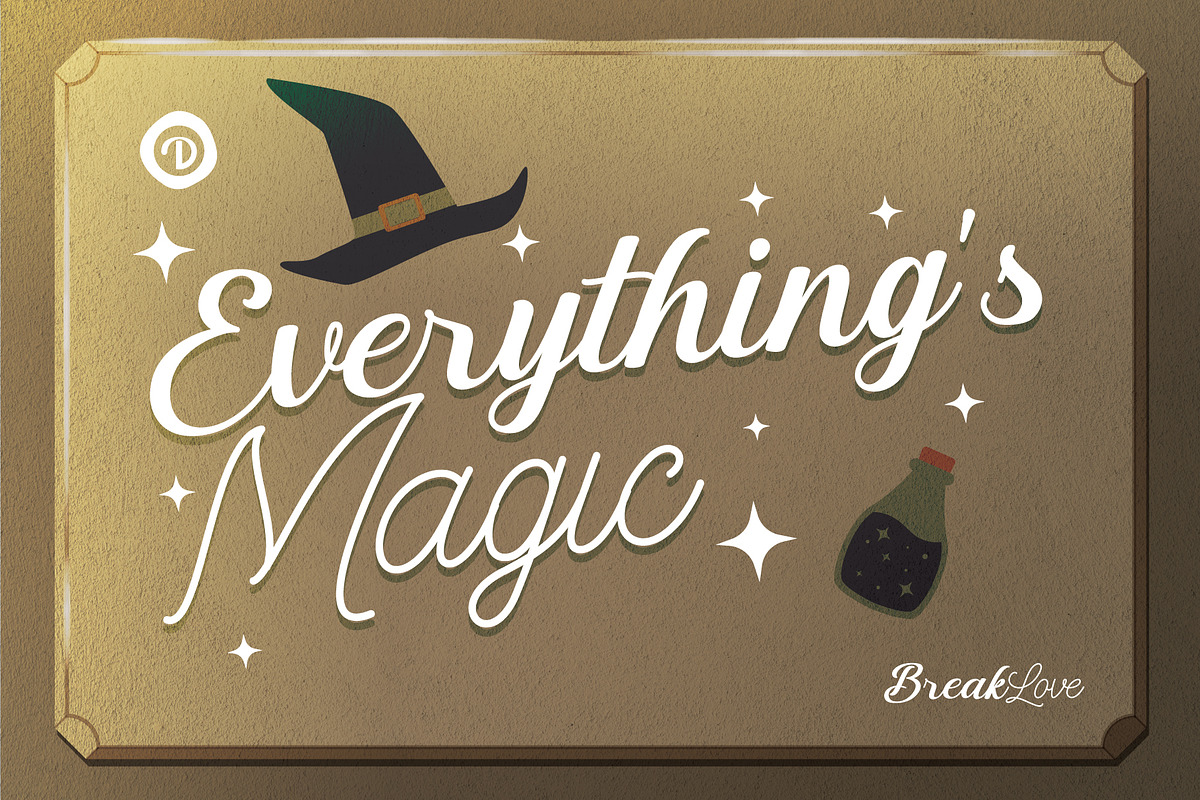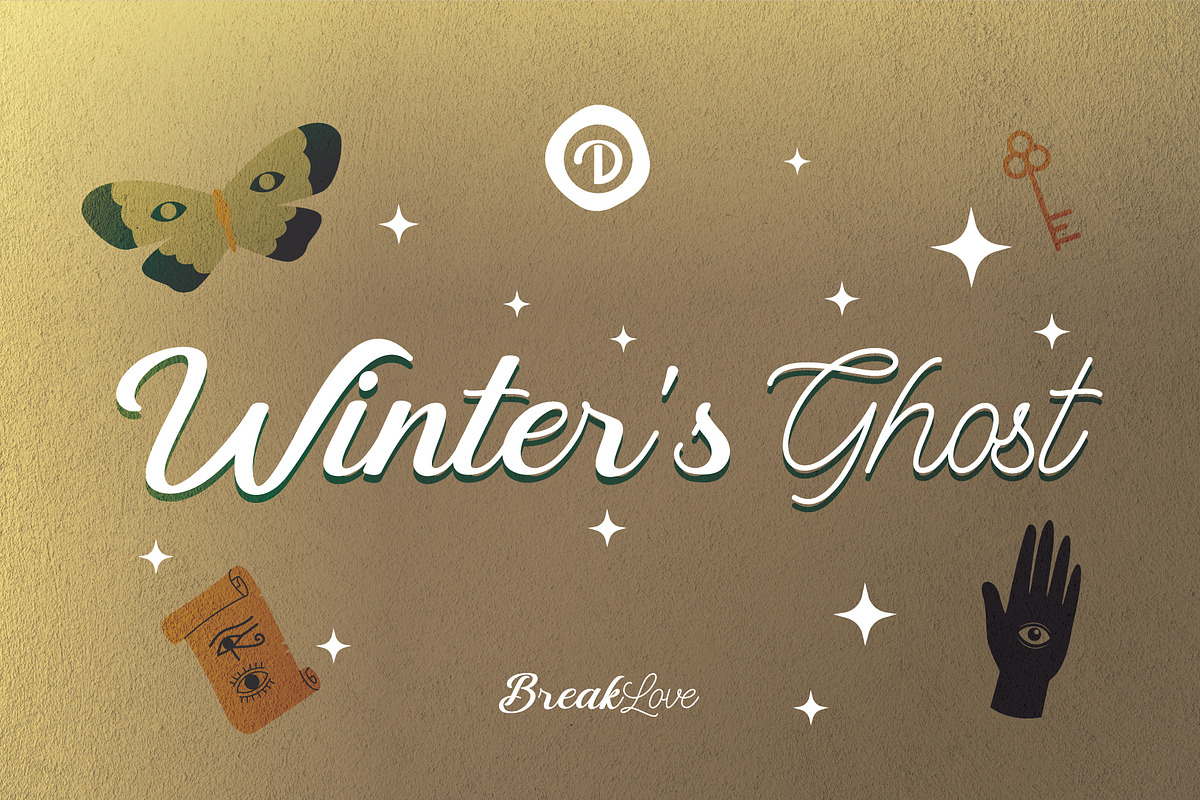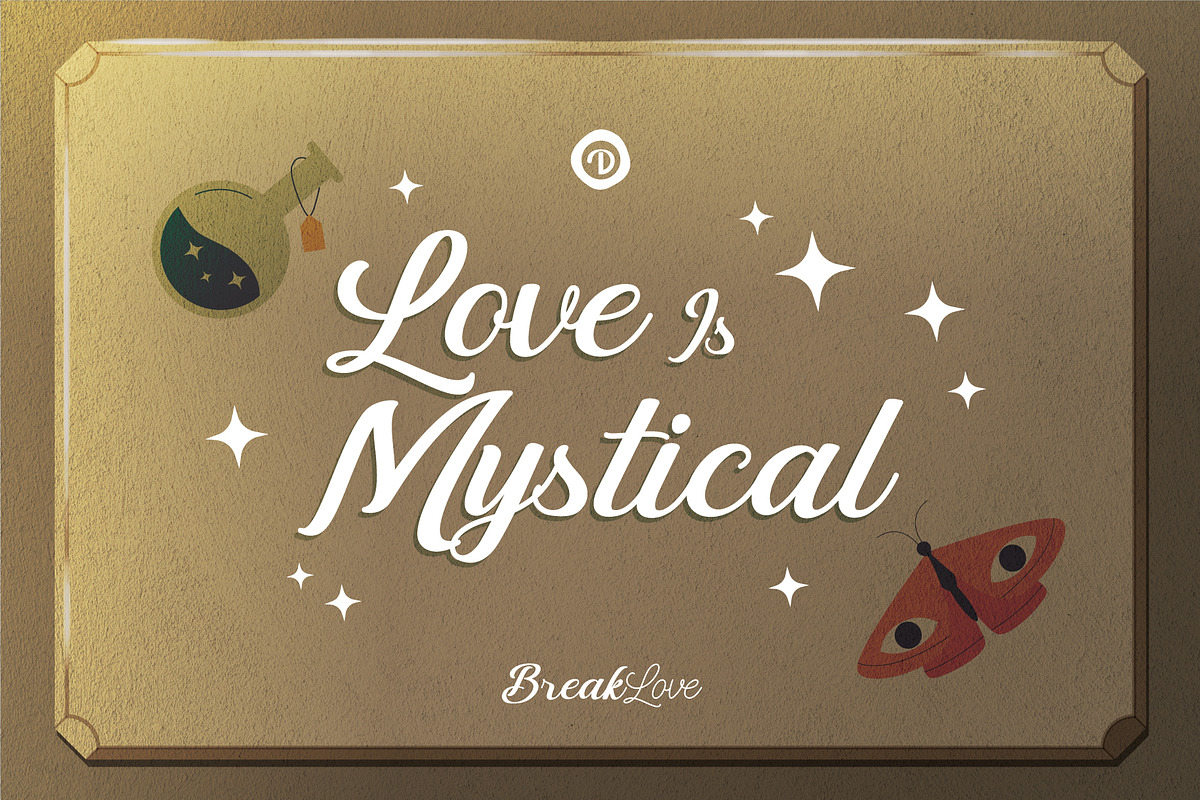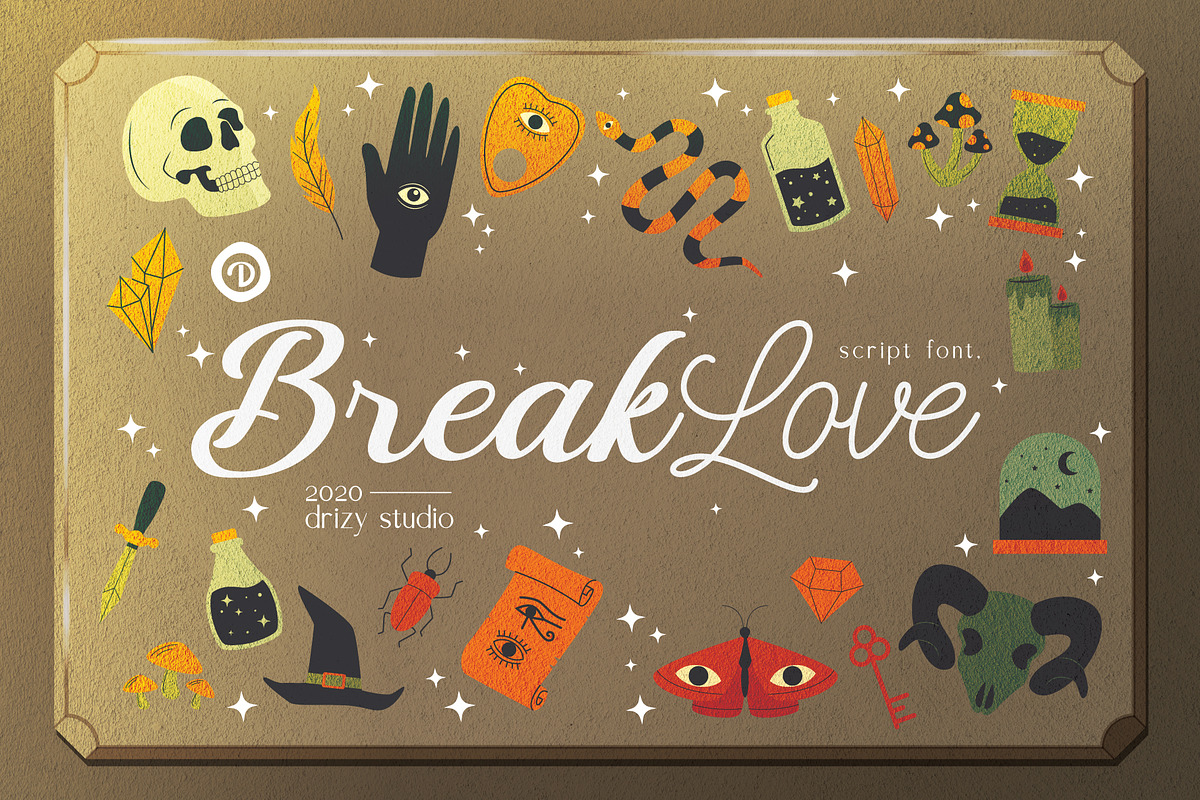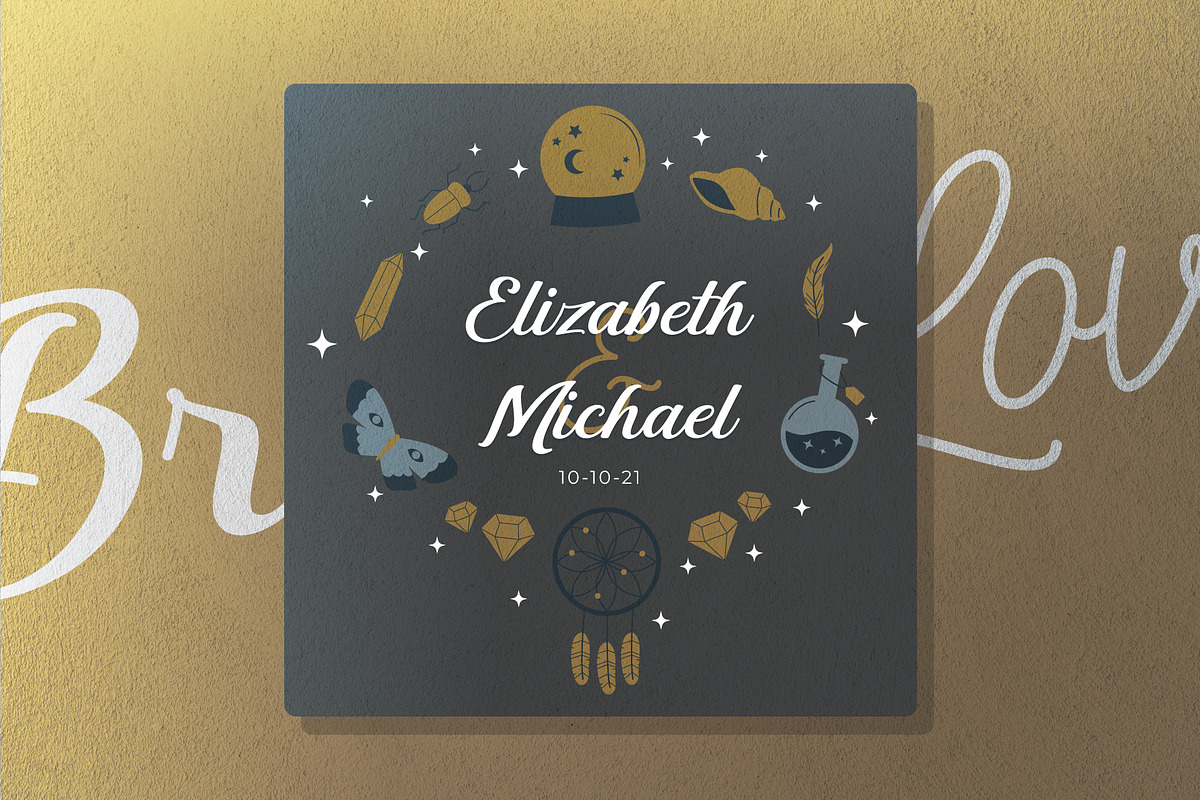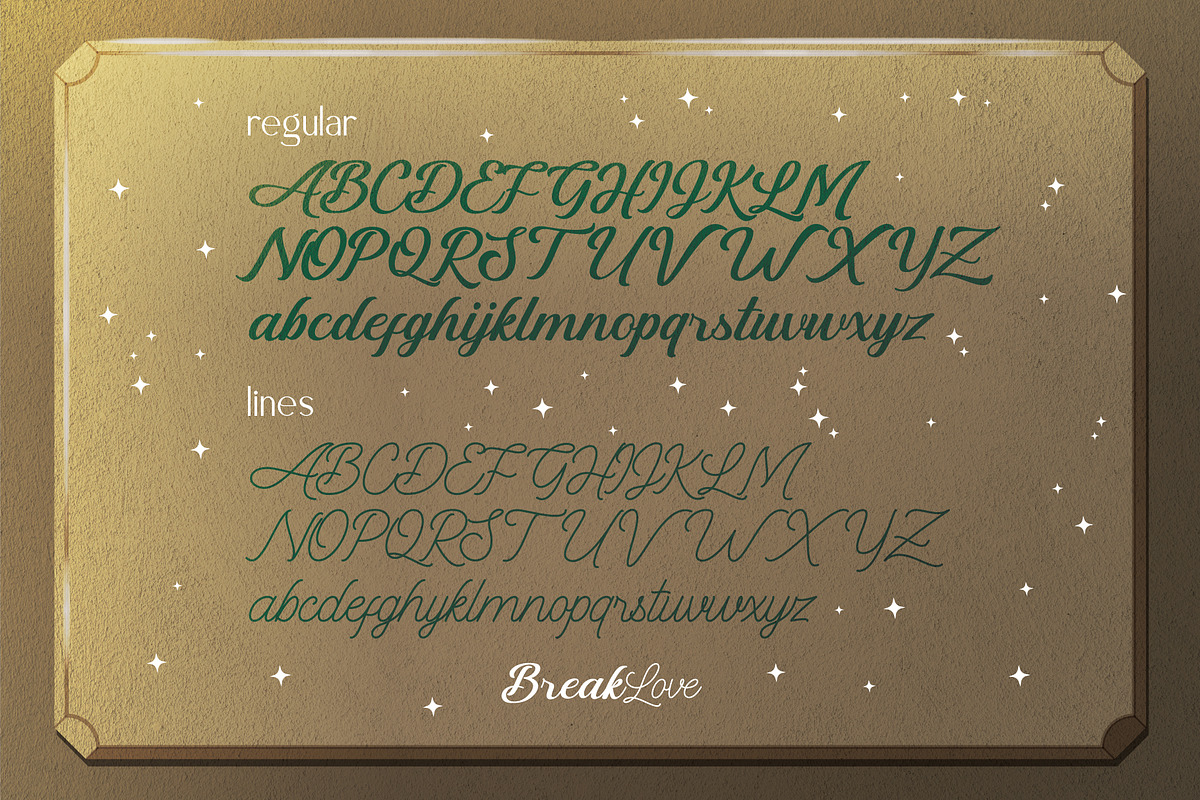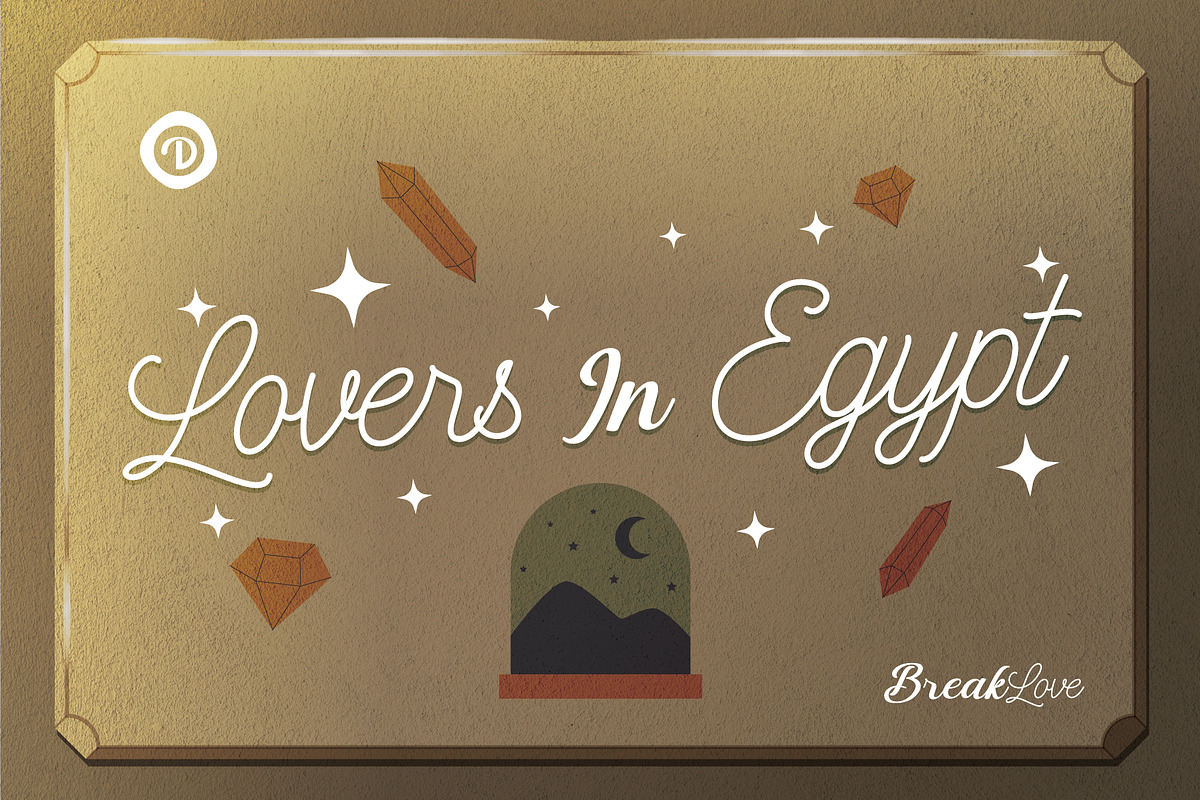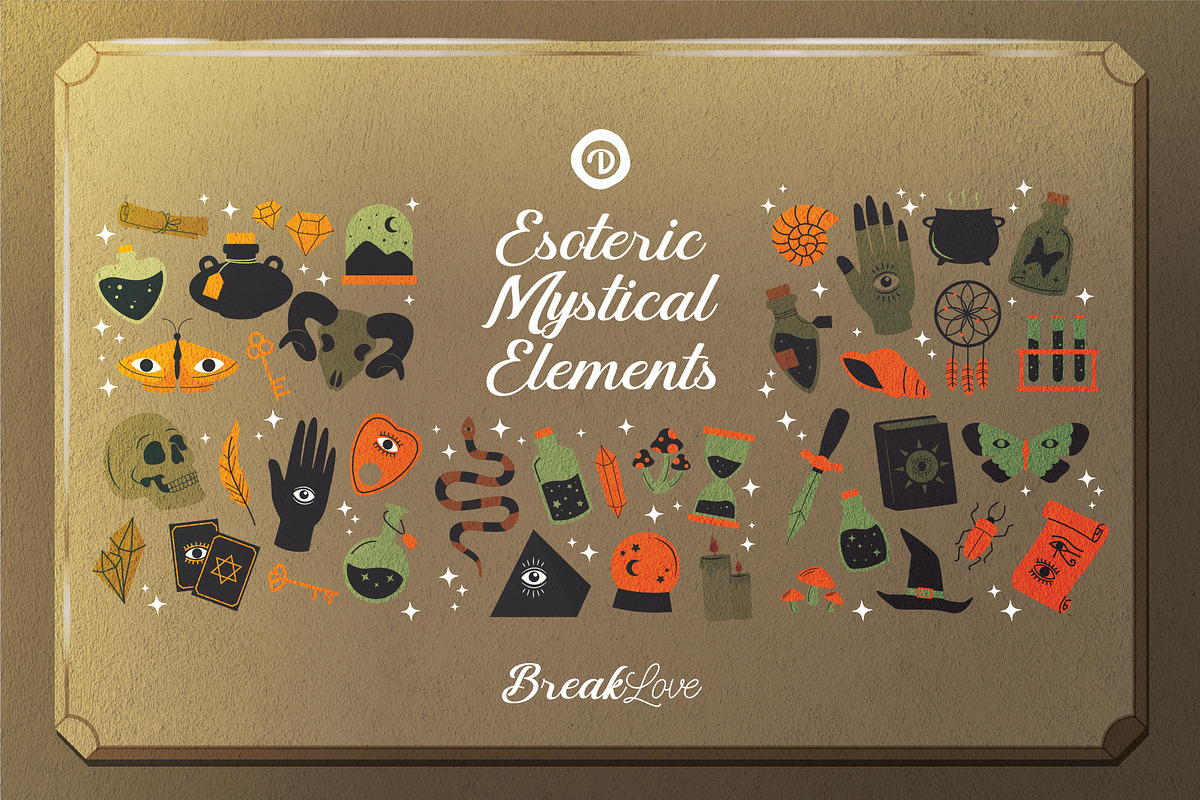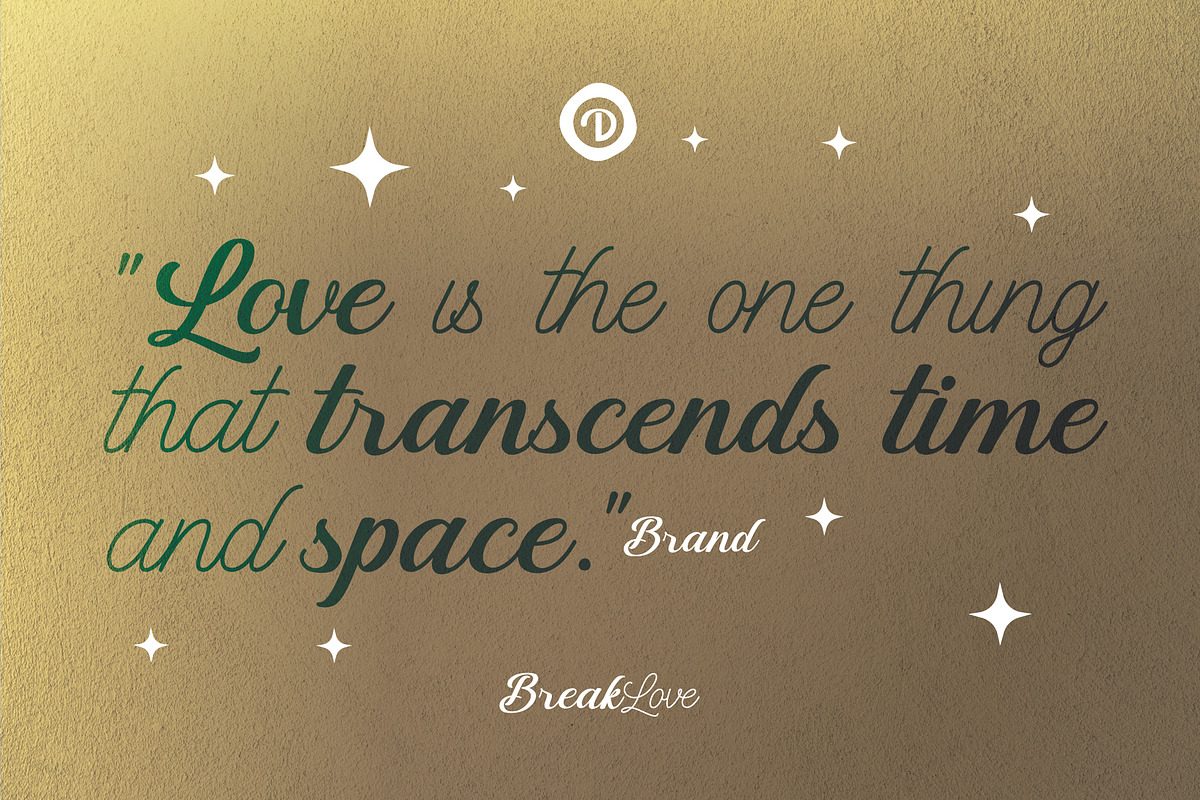
BreakLove
Introducing BreakLove! a beautiful Display font with two types of thickness from drizy! This is a mystical script typeface for display. Perfect for gorgeous logos & titles, BreakLove will pair beautifully with many fonts and work well with whatever project you're working on.